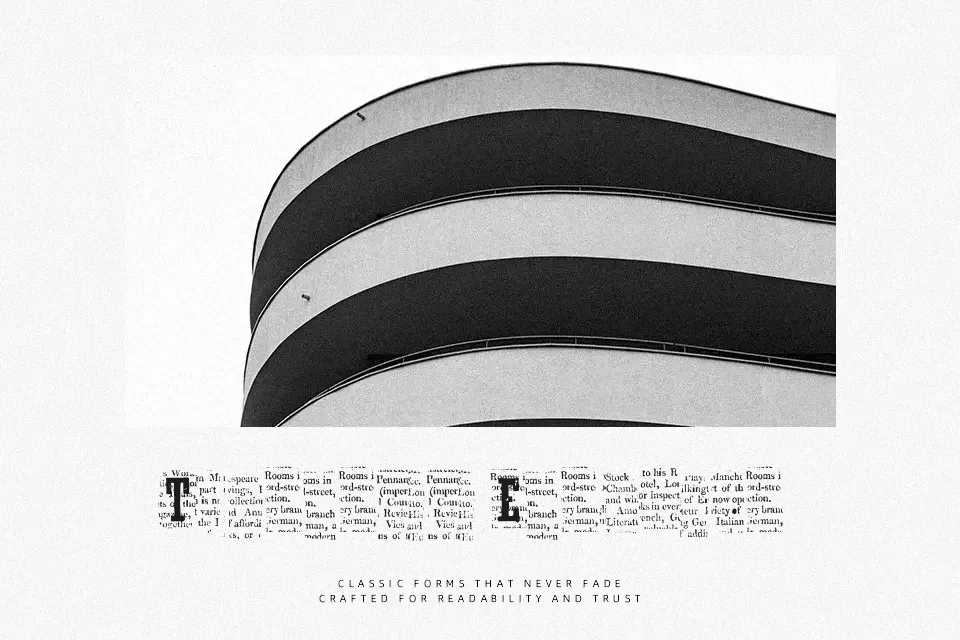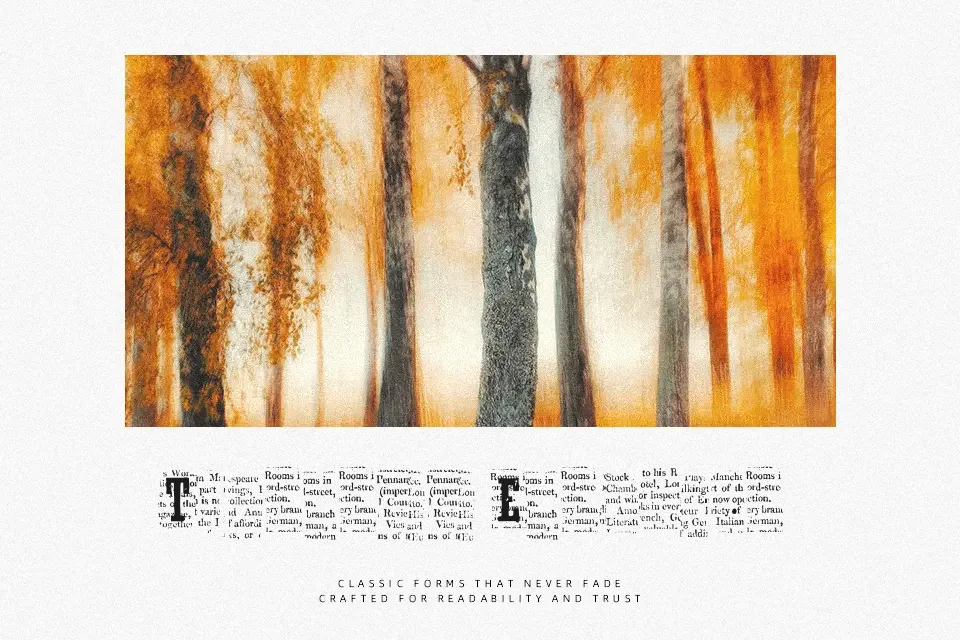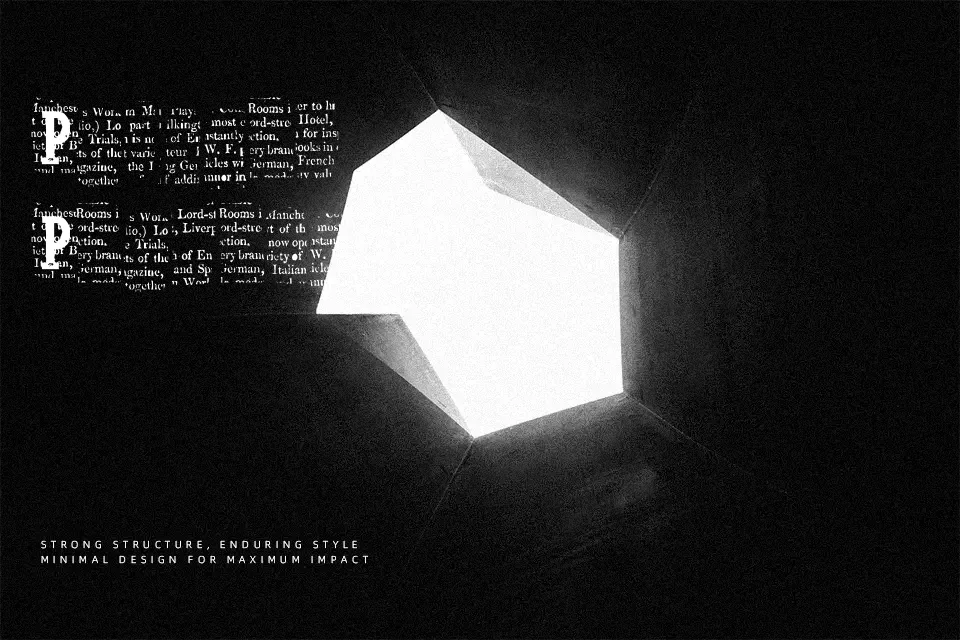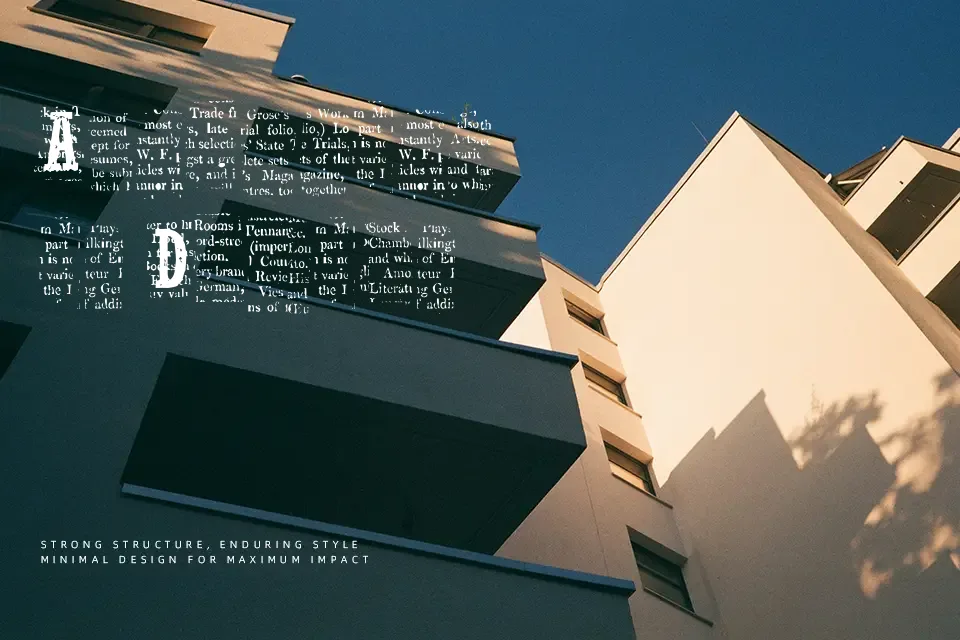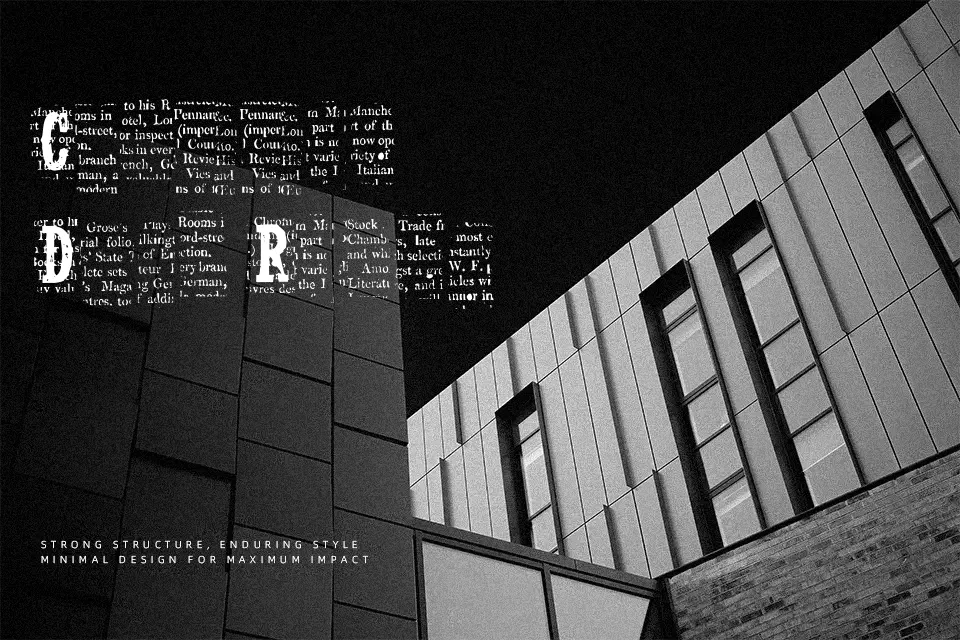
CF Nelson Old NewsPaper Font
Designed by Cloutierfontes
CF Nelson Old NewsPaper Font combines traditional serif proportions with heavily eroded contours to replicate imperfect nineteenth-century printing. Each glyph presents moderate contrast alongside frayed edges, scattered ink blemishes, and distressed counters. The spacing remains somewhat open, ensuring individual characters stay legible even with significant visual decay. These gritty physical details help the typeface excel in historical film titles, vintage pub signage, and authentic editorial headlines. Because extensive degradation compromises visual clarity at reduced scales, the design is not suitable for continuous reading, dense legal disclaimers, or small user interface text.
Best For: vintage product packaging, period editorial headlines, historical film titles, rustic apparel graphics
Not Ideal For: continuous body text, mobile interface labels, dense legal documents, spreadsheet data
Perfect for branding, editorial, and headline, with a classic and decorative style.